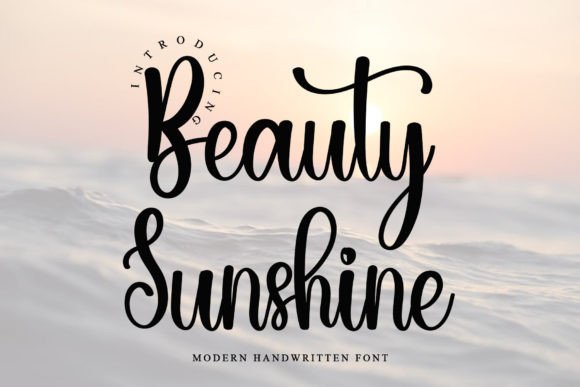
Immerse yourself in the captivating world of Beauty Sunshine, a script font that embodies elegance and charm. Its flowing curves and delicate strokes dance across the page, evoking a sense of timeless beauty. With its classy calligraphic influences and contemporary flair, Beauty Sunshine is a true masterpiece that will elevate your projects to new heights.
Unleash your creativity and let your words come alive with Beauty Sunshine. This font is a perfect match for love letters, adding a touch of romance and intimacy to your heartfelt messages. Its graceful lines and subtle flourishes create a visual symphony that captures the essence of love and connection.
Imagine holding a handwritten letter penned with Beauty Sunshine, feeling the warmth and sincerity in each word. The font's delicate details evoke a sense of nostalgia, transporting you to a time when letters were cherished and words held deeper meaning.
Beauty Sunshine's versatility extends beyond love letters. Its elegant style lends itself effortlessly to wedding invitations, greeting cards, branding materials, and social media graphics. Whether you're a professional designer or simply seeking a font that adds a touch of sophistication to your projects, Beauty Sunshine is the perfect choice.
Experience the joy of creating with Beauty Sunshine and watch your words transform into works of art. Its user-friendly design makes it accessible to everyone, from seasoned designers to those just starting their creative journey. Let Beauty Sunshine be your muse and unlock the boundless possibilities of your imagination.